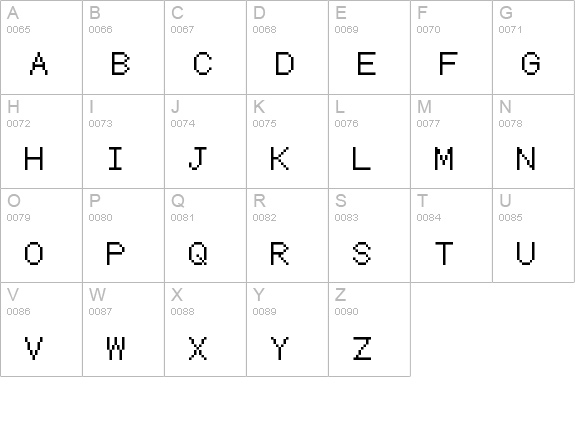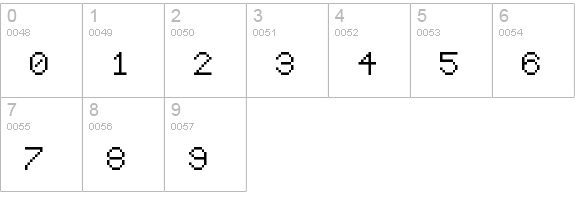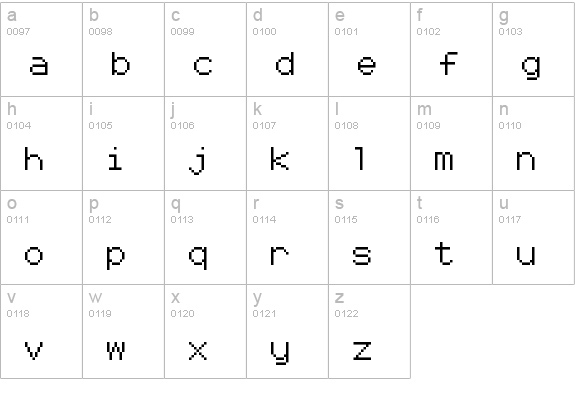
Coder's Crux 2 Regular Font Details
Coder's Crux 2 Regular is the standard, neutral variant in the Coder's typeface family \xE2\x80\x94 well suited to general body text, paragraphs, and standard typographic work.
Coder's Crux 2 Regular font is a sleek and modern typeface that is perfect for coding, programming, and tech-related projects. This font features clean lines and sharp edges, making it easy to read on screens and in print. With its bold and futuristic appearance, Coder's Crux 2 Regular is sure to make your text stand out. Whether you're designing a website, creating a software interface, or writing code snippets, this font will enhance the overall look of your work. Best of all, Coder's Crux 2 Regular font is available for free download at FontsMarket.com. This means you can start using this stylish and professional font in your projects right away, without any cost. Don't miss out on this opportunity to elevate your design and coding projects with Coder's Crux 2 Regular font - download it today and see the difference it makes!